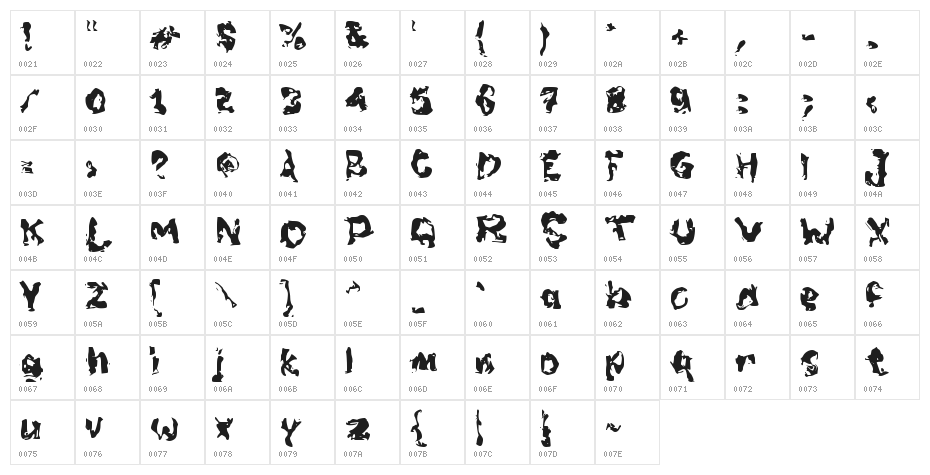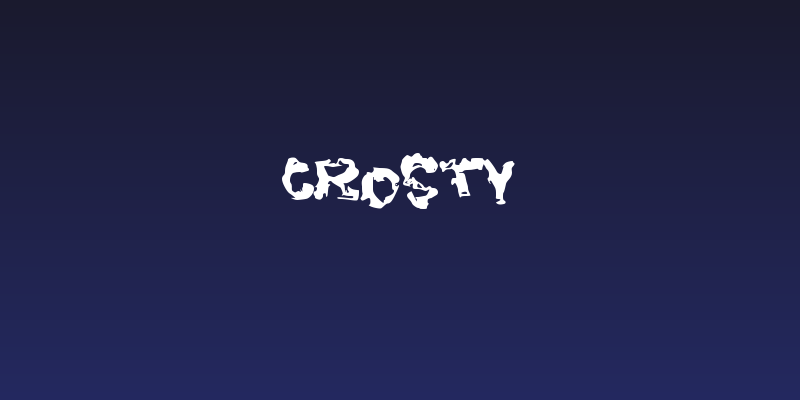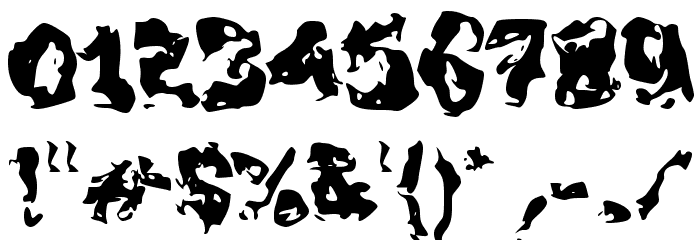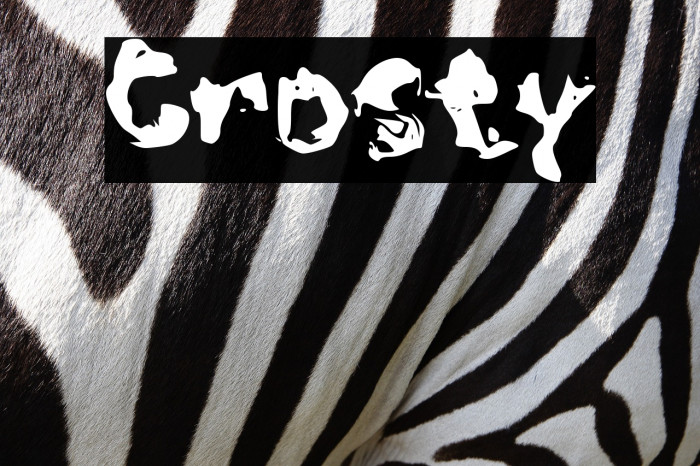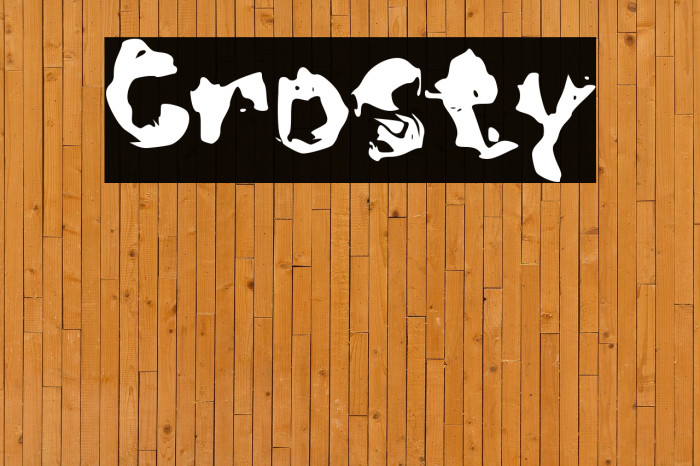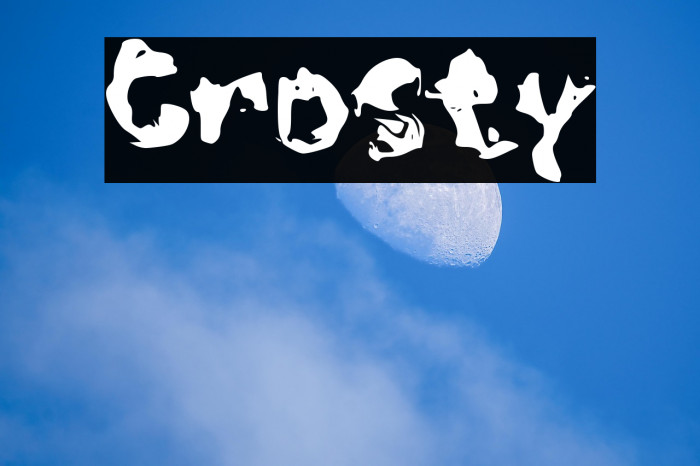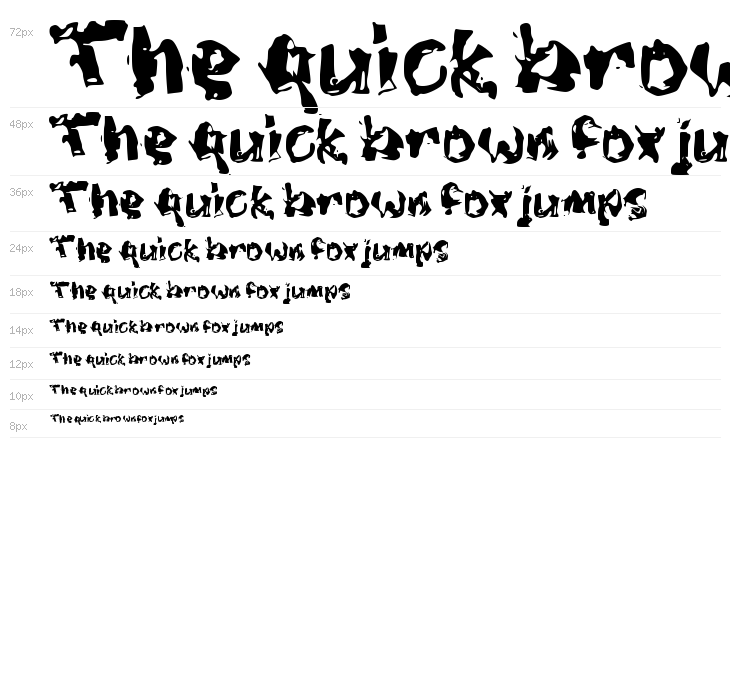
Crosty Font
Crosty Description
This font exhibits a highly decorative and abstract style, characterized by its irregular and fragmented letterforms. The design is reminiscent of splattered paint or ink blots, giving it a chaotic yet artistic appearance. Each character is unique, with varying levels of opacity and intricate detailing that create a sense of movement and energy. The font's bold and expressive nature makes it stand out, while the irregular shapes and forms add a layer of complexity and depth. This typeface is not suited for readability in large bodies of text but excels in creating visual impact and artistic expression.
| Use Case | Logos, Posters, Artistic Projects |
| Proposed Projects | Ideal for artistic projects, album covers, posters, and creative branding that seeks to convey a sense of chaos and creativity. |